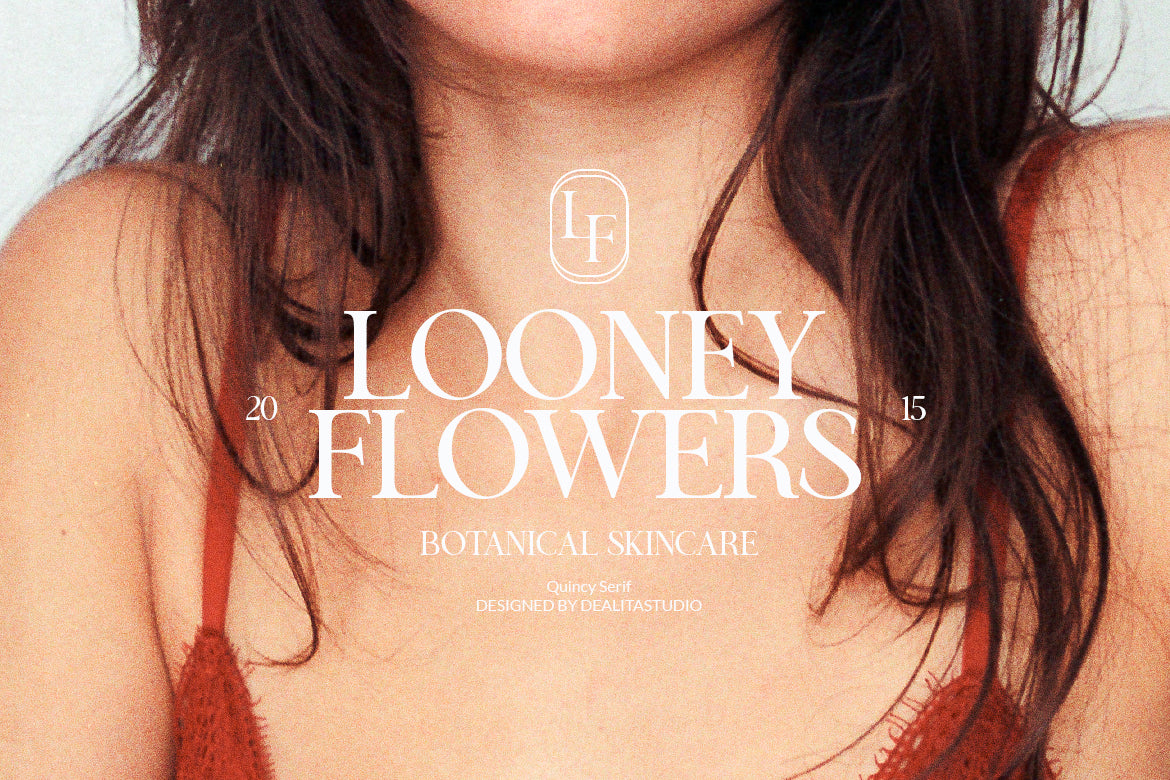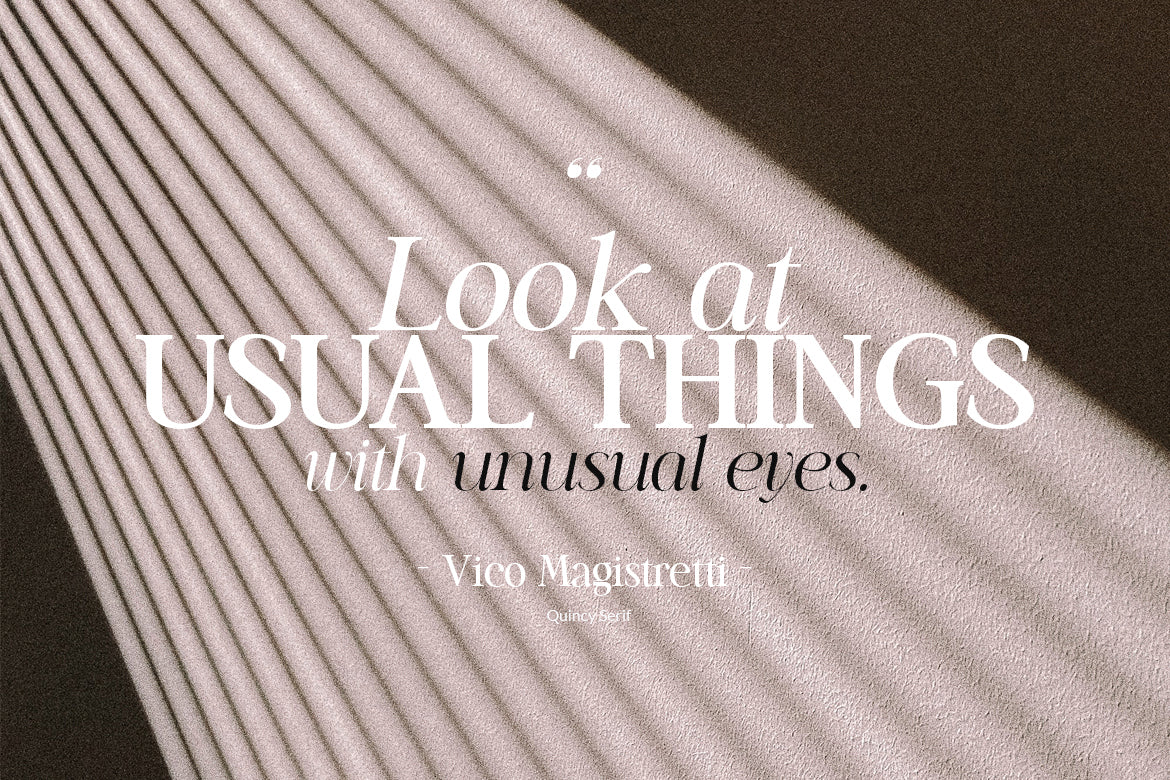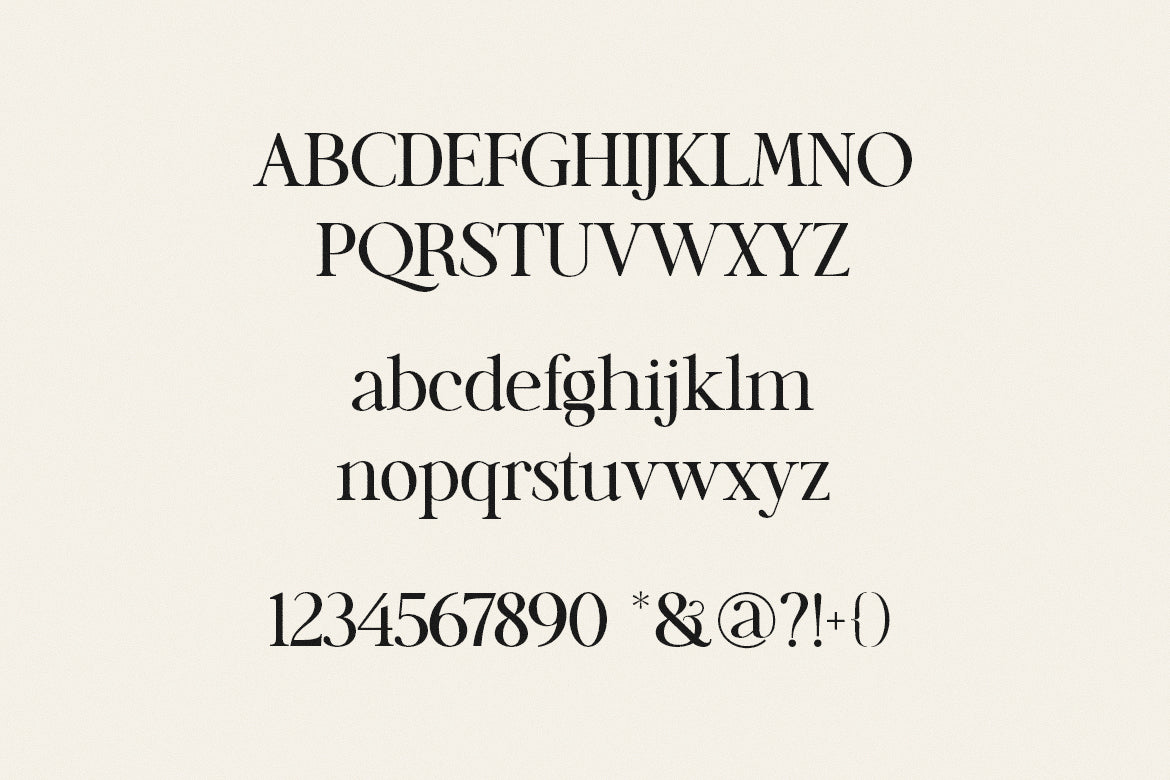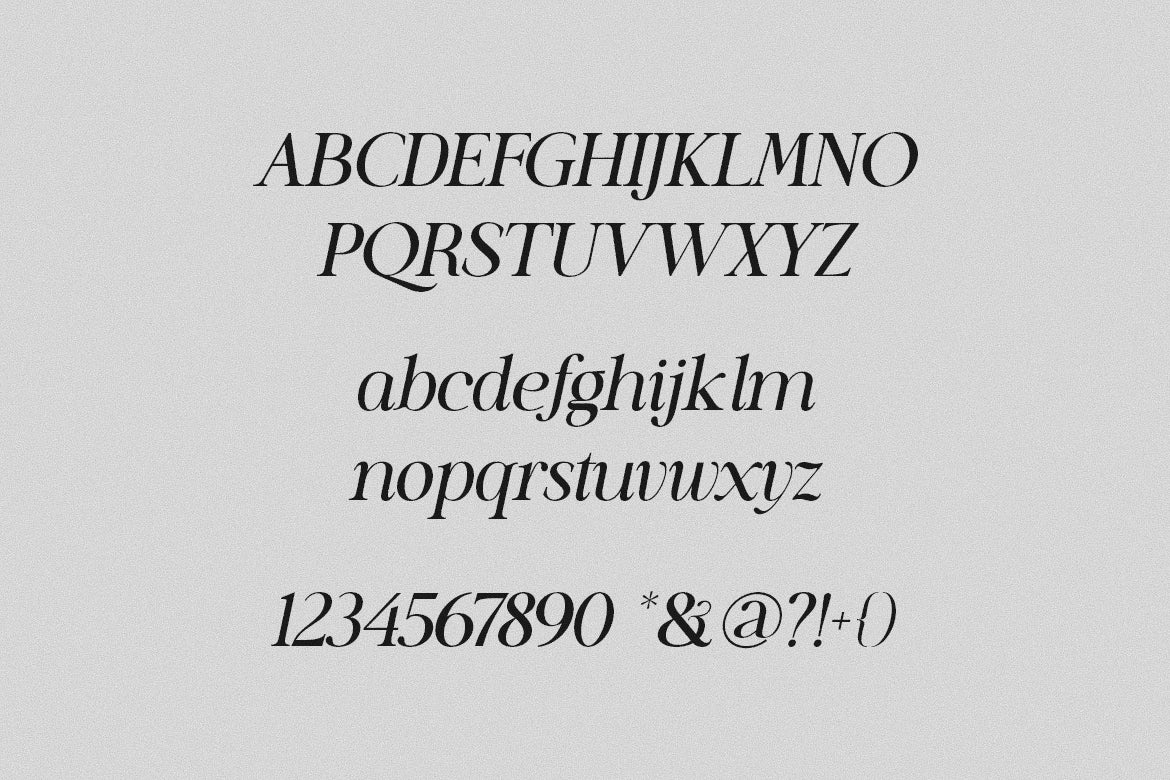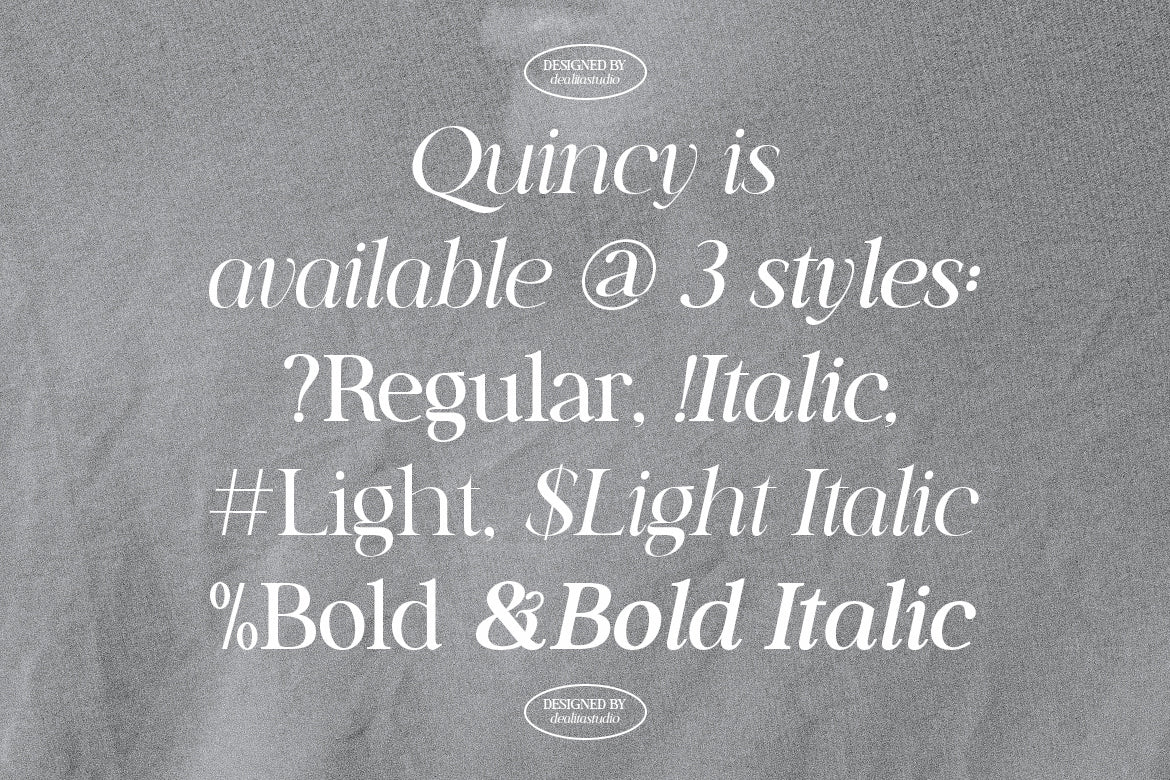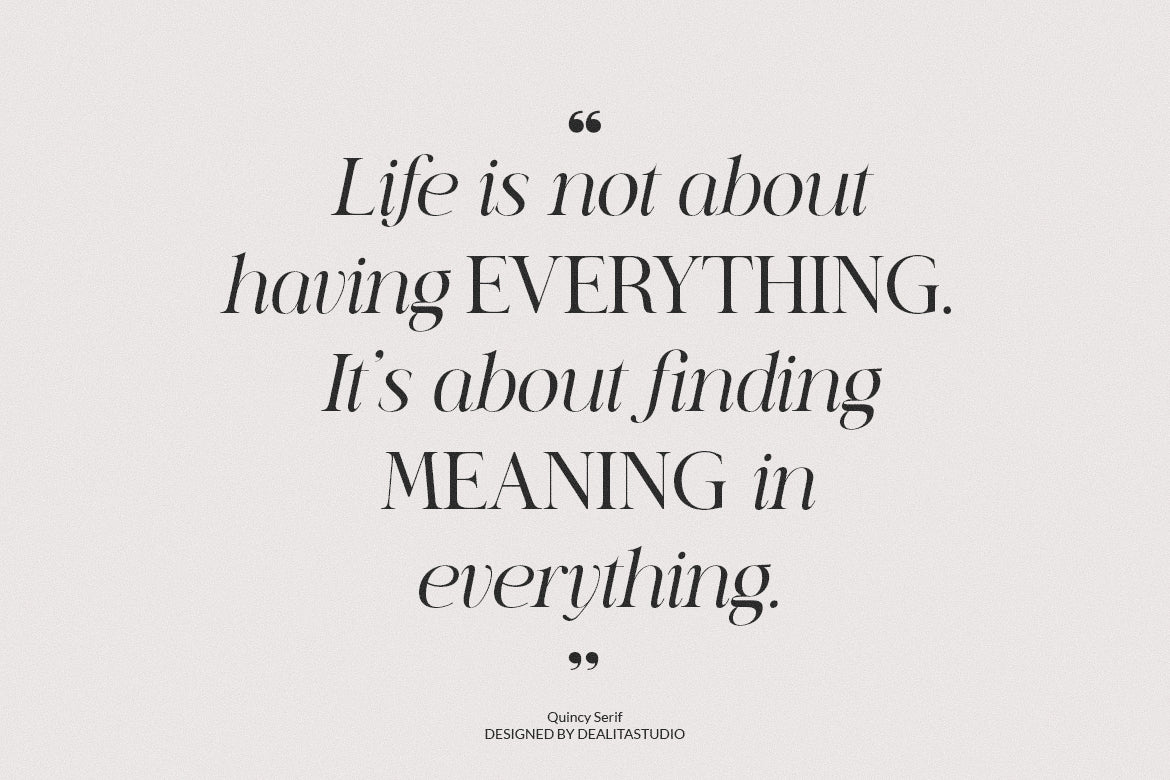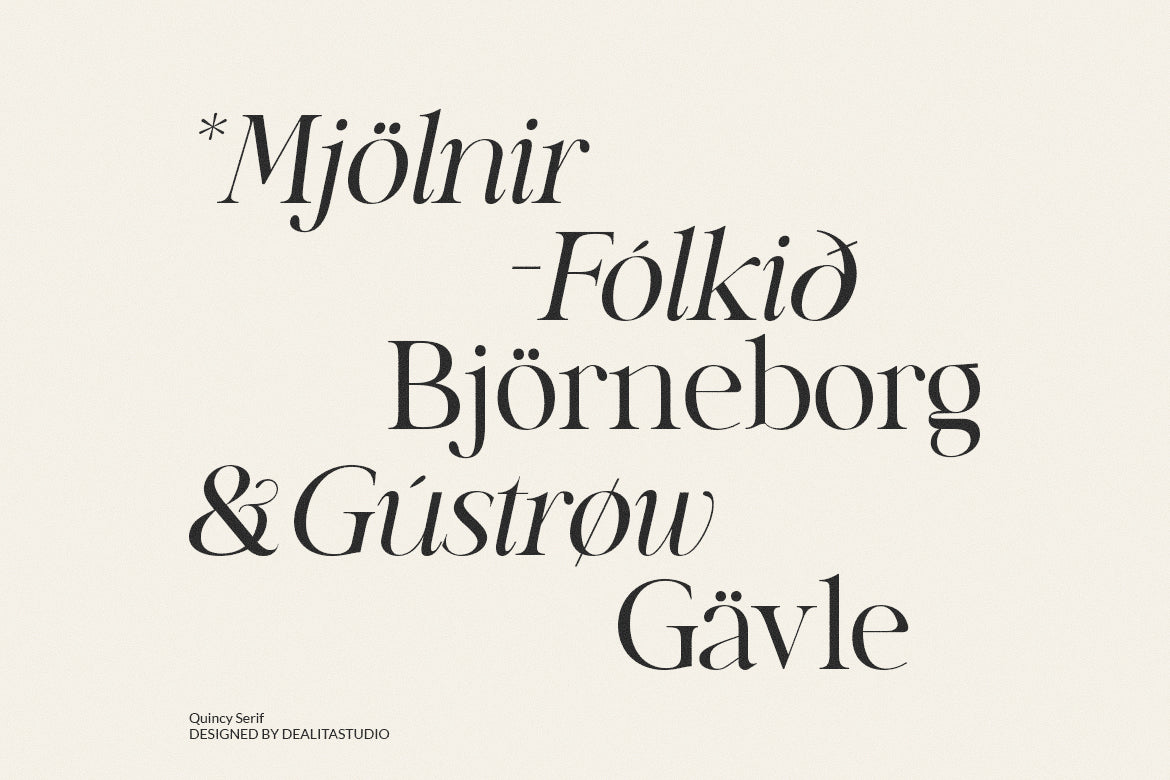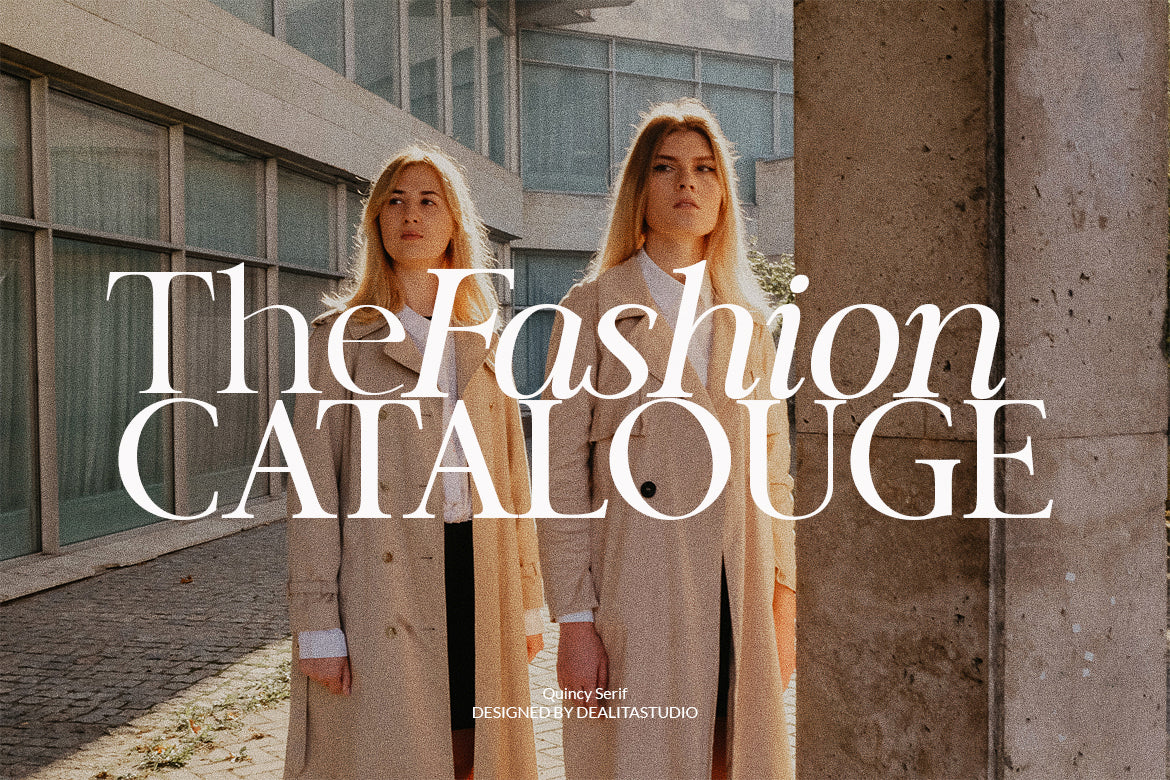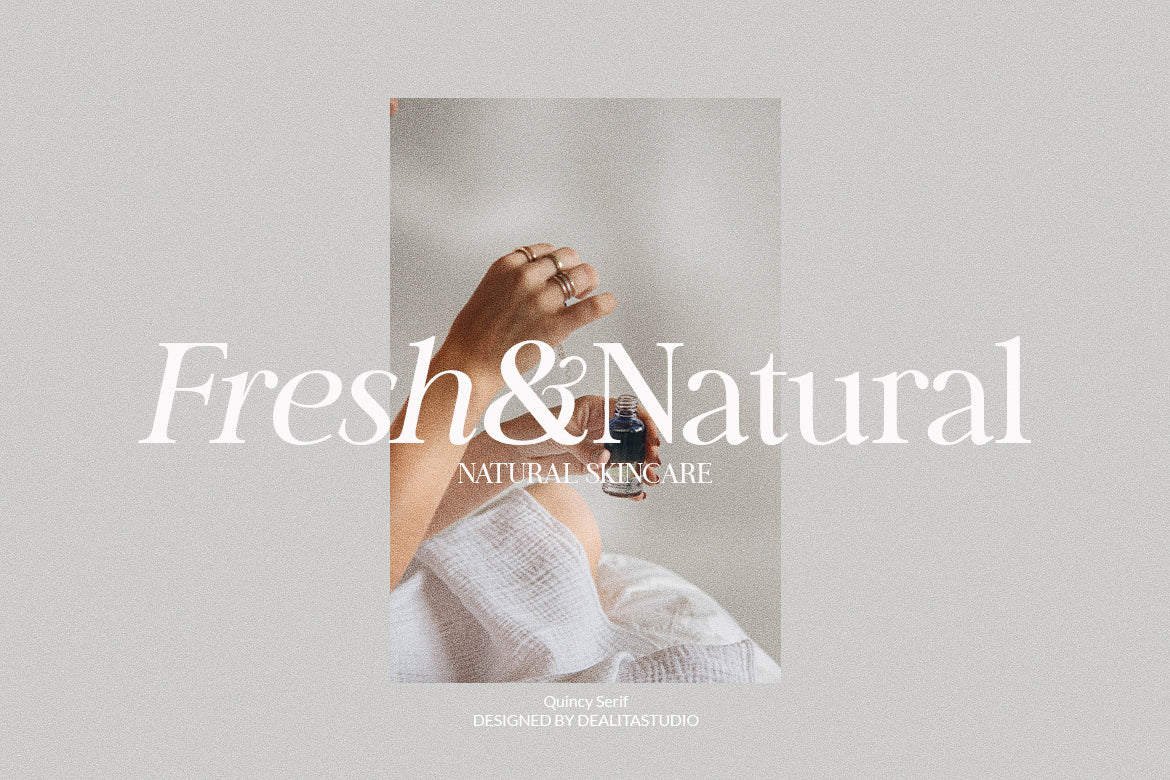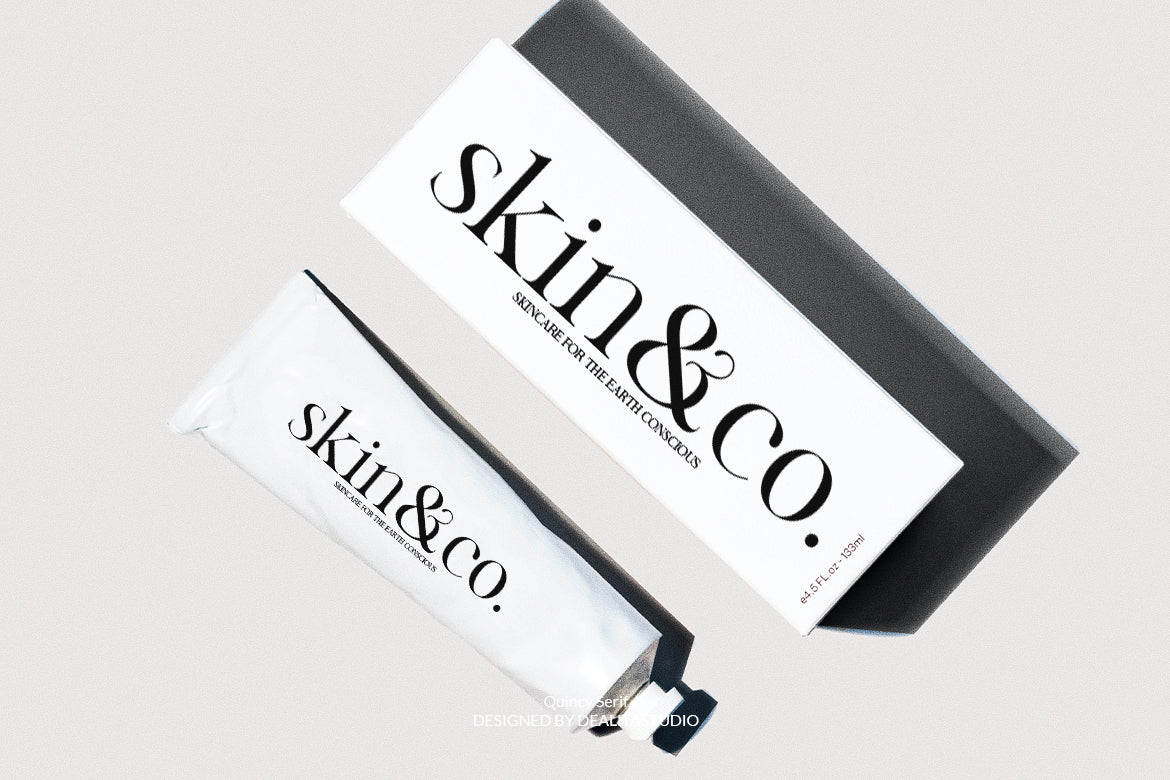
Quincy by Dealita Studio is a stylish serif font that combines elegant contrast with refined decorative details. Designed for impact and sophistication, Quincy is perfect for fashion branding, beauty labels, luxury packaging, and editorial design that demands a bold yet graceful presence.
With its high-contrast strokes and subtle flair, Quincy adds a touch of drama and class to any project. It’s ideal for logos, headlines, product labels, and social media content where elegance meets statement-making style.
Quincy pairs beautifully with minimalist sans-serifs or clean scripts for a balanced, modern look. Use it to create stunning designs for: • Fashion and beauty branding • Luxury product packaging • Magazine headlines and editorial layouts • Wedding and bridal logos • Social media graphics and quotes
Whether you’re launching a premium beauty brand or crafting a high-end editorial identity, Quincy delivers the style and sophistication your project deserves.
Make a statement with elegance — with Quincy, the stylish serif font that turns typography into art.